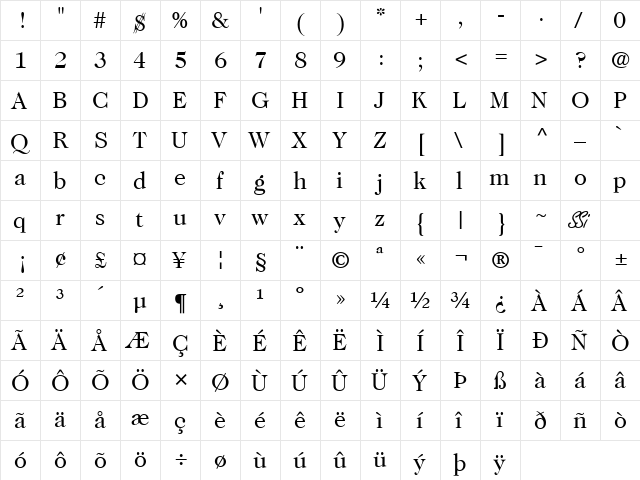
Caslon Two SSi Regular
Design Context for Caslon Two SSi Typeface
Caslon Two SSi takes a measured approach to typography — its balanced proportions and neutral character make it a reliable workhorse for both digital and print work.